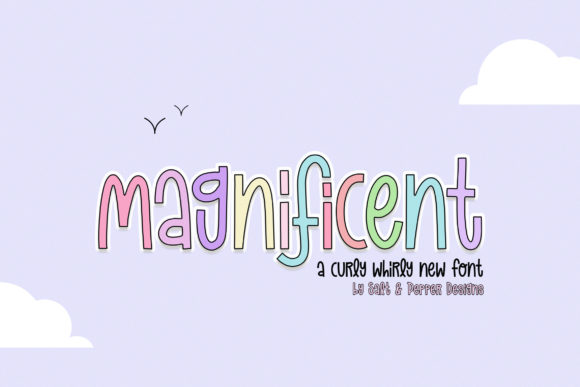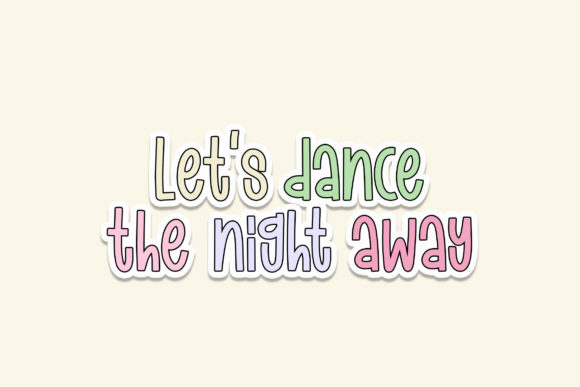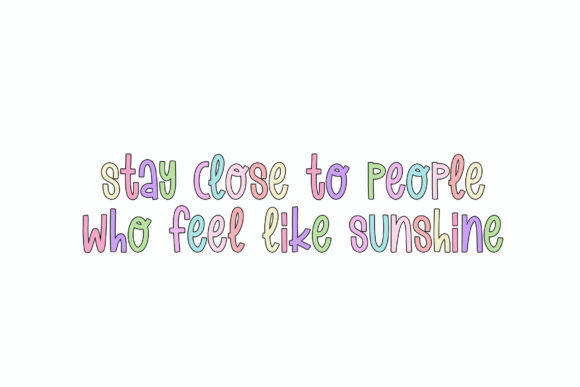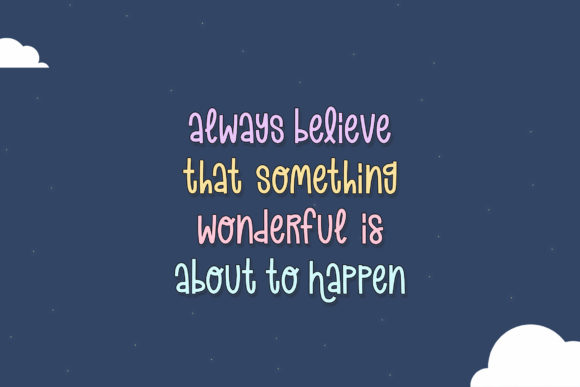
Magnificent Duo Font
About the Magnificent Duo Font
Get ready to be inspired by Magnificent Duo Font, a fresh and dynamic typeface for modern creators. Magnificent Duo is a friendly, joyful and neat display font. This font is perfect for children themed designs, especially when combined with bright colors.
Magnificent Duo’s playful energy makes it ideal for children’s book titles, logos for toy brands, and playful packaging designs. It also works well in posters and short headlines where a friendly, approachable feel is desired. However, its display nature makes it unsuitable for body text or lengthy paragraphs; readability suffers at smaller sizes. Avoid using it in user interfaces or situations requiring high levels of legibility.
To complement its joyful character, pair Magnificent Duo with a clean sans-serif like Open Sans for body text or a slightly more playful script font such as Pacifico for secondary text elements. For a more sophisticated feel, consider pairing it with a geometric sans-serif like Montserrat for a contrast that highlights its unique charm.
The overall personality is best described as cheerful and approachable, but with a clear, well-defined structure that prevents it from becoming overwhelming or childish. Its friendly nature makes it perfect for projects targeting a younger audience or needing a lighthearted, optimistic tone.
Magnificent Duo Font Usage Examples
Magnificent Duo Font Example